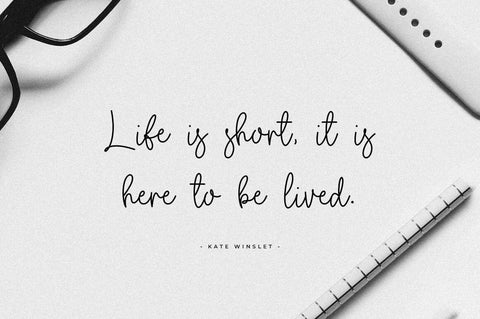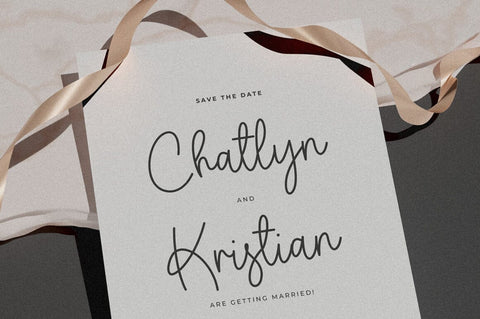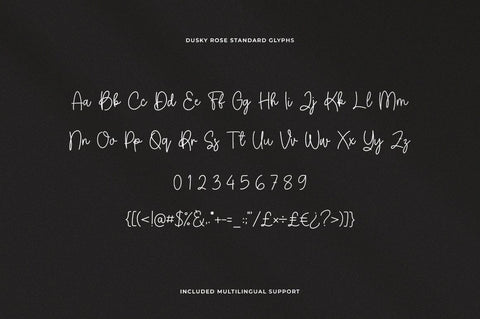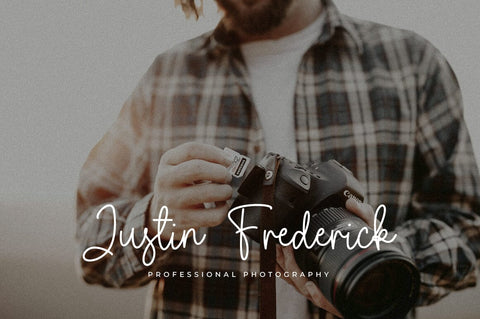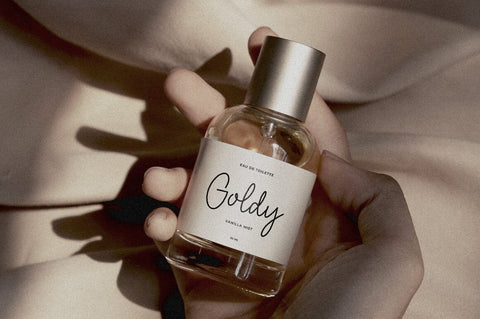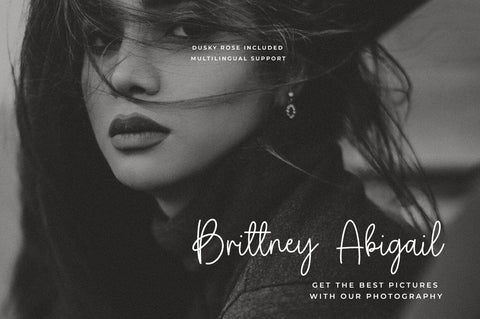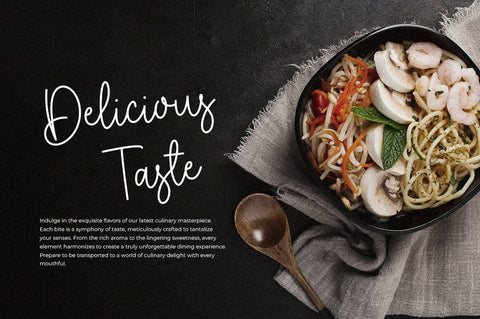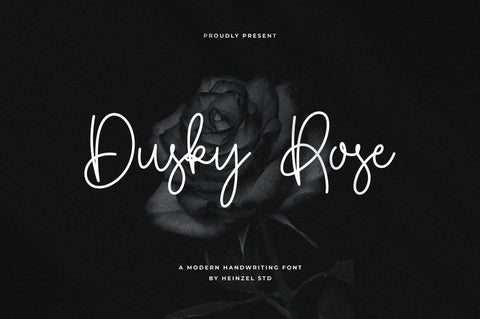
Dusky Rose Handwriting Font
Dusky Rose is a flowing handwriting font, described by an elegant touch, perfect for your favorite projects. It looks stunning on wedding invitations, thank you cards, quotes, greeting cards, logos, business cards and every other design which needs a handwritten touch. Fall in love with its incredibly distinct and timeless style and use it to create spectacular designs!
Dusky Rose Features :
- Numerals and Punctuations